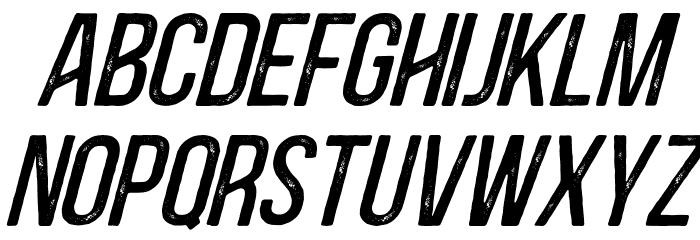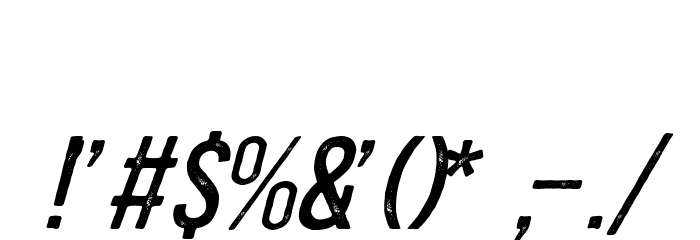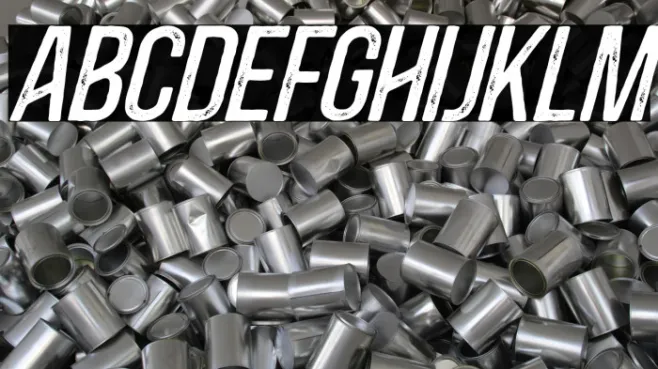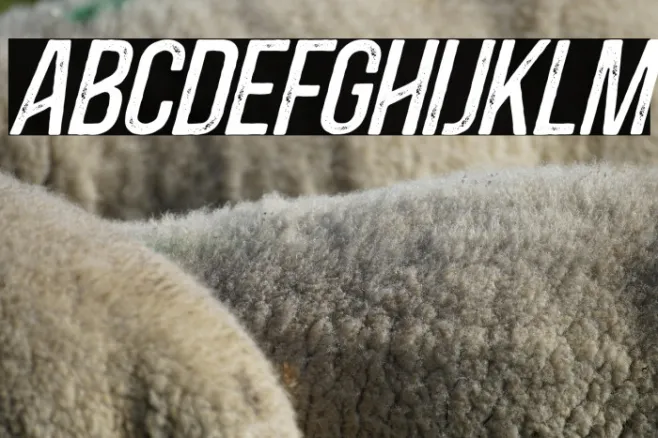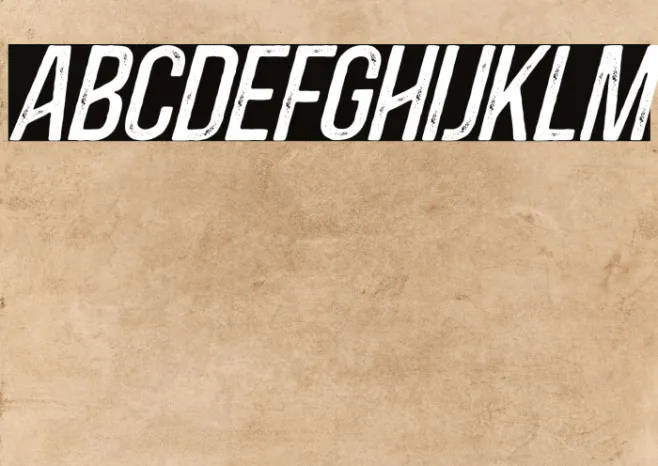
BlacksideRustItalic Font
This font exhibits a rugged, distressed style with a slanted, italicized form. The characters have a textured, worn appearance, giving them a vintage, industrial feel. The uppercase letters are bold and slightly condensed, while the lowercase letters maintain a consistent style. The numbers and special characters follow the same design, ensuring uniformity across all glyphs. The font's unique texture and slant make it ideal for projects that require a bold, eye-catching statement with a touch of nostalgia.
A rugged, italicized font with a distressed, vintage appearance.
- Font: BlacksideRustItalic
- Proposed Projects: Ideal for branding, posters, and apparel designs that require a bold, vintage aesthetic.
- Overall Style: Vintage